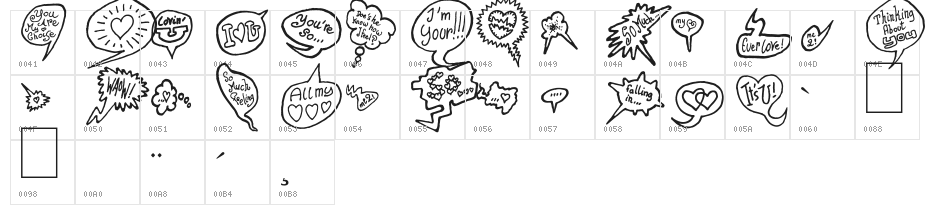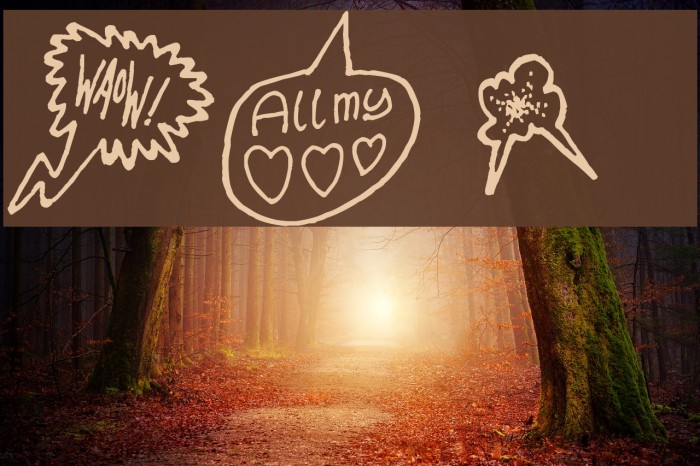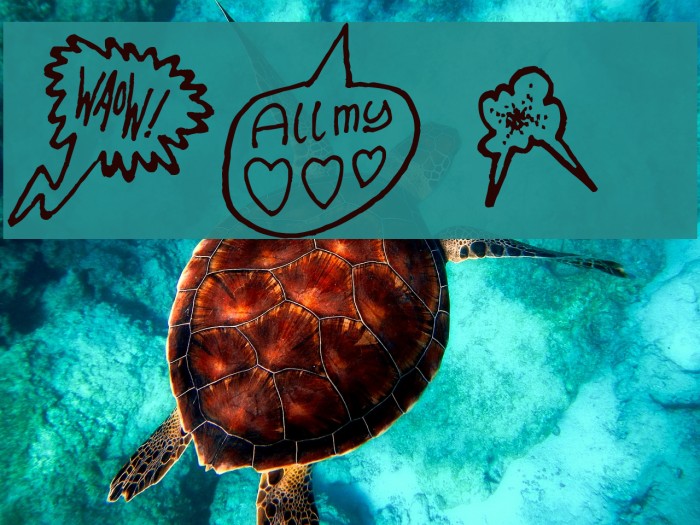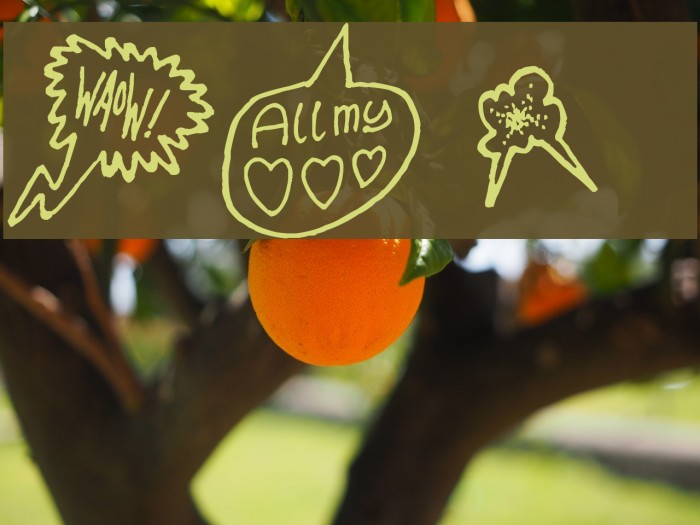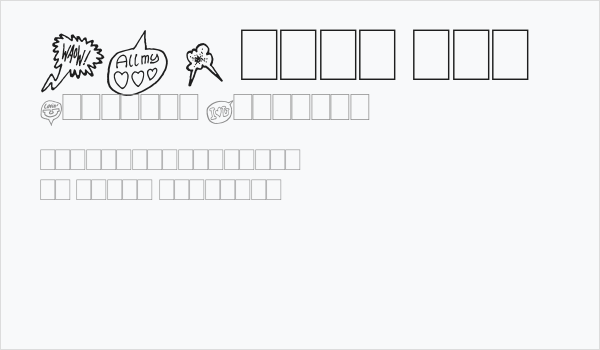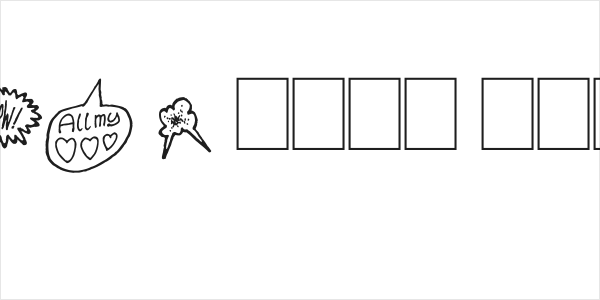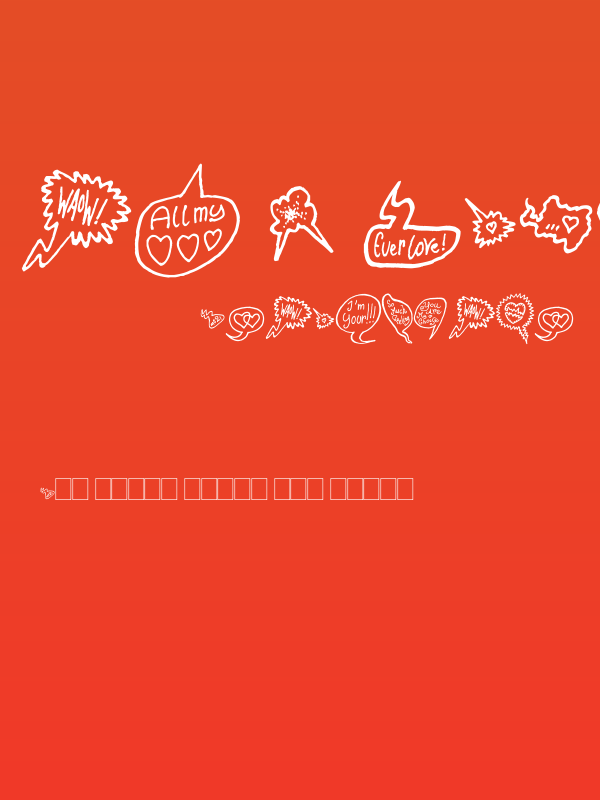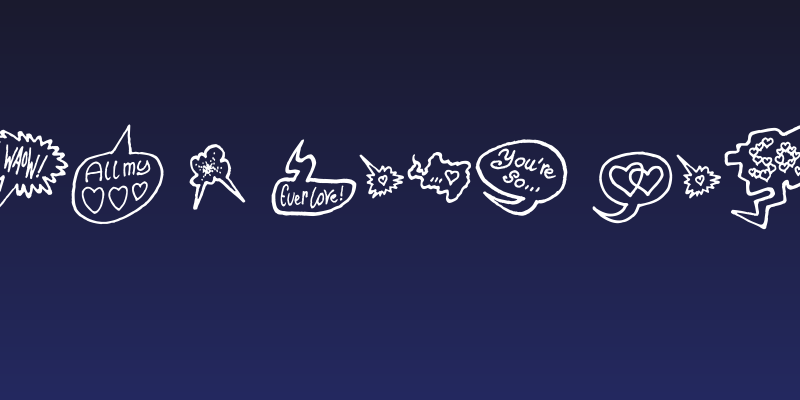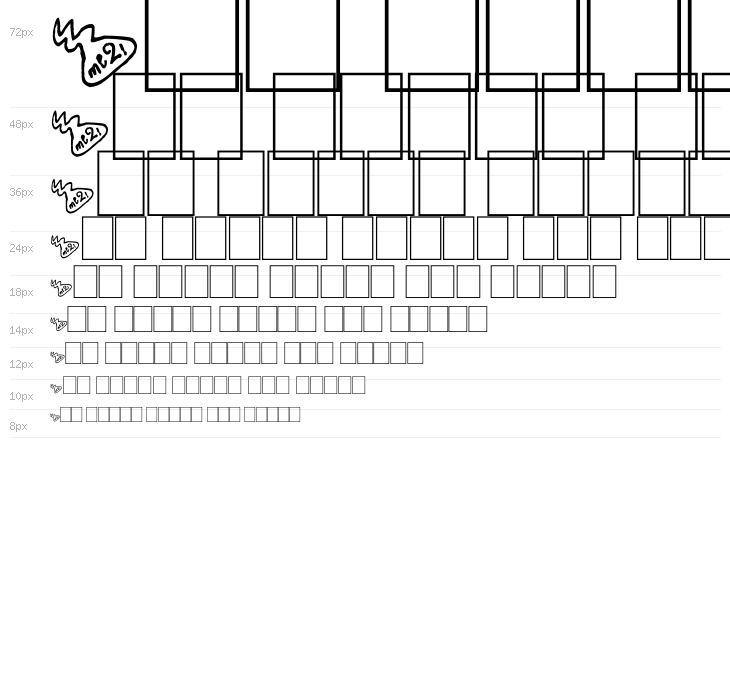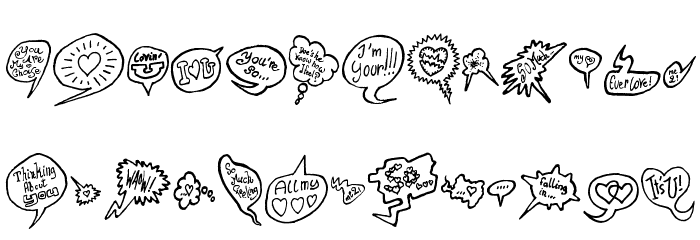
PS I love you Font
PS I love you Description
This design features a playful and whimsical collection of hand-drawn speech bubbles and doodles, each containing romantic and affectionate phrases. The style is cartoonish and lively, with each element varying in shape and size, creating a dynamic and engaging visual experience. The text within the bubbles is casual and handwritten, adding a personal and intimate touch. The use of hearts, stars, and other decorative elements enhances the theme of love and affection, making it suitable for romantic or lighthearted projects.
| Overall Style | Whimsical, Playful |
| Use Case | Decorative elements, Greeting cards, Social media graphics |
| Proposed Projects | Ideal for Valentine's Day cards, romantic gift packaging, love-themed social media graphics, or playful wedding invitations. |